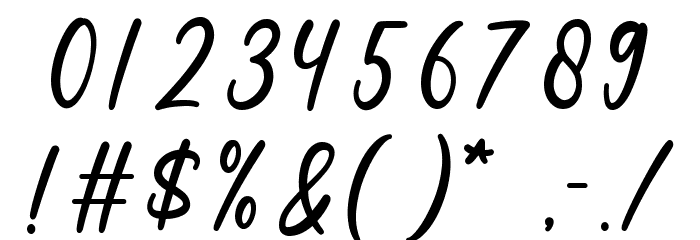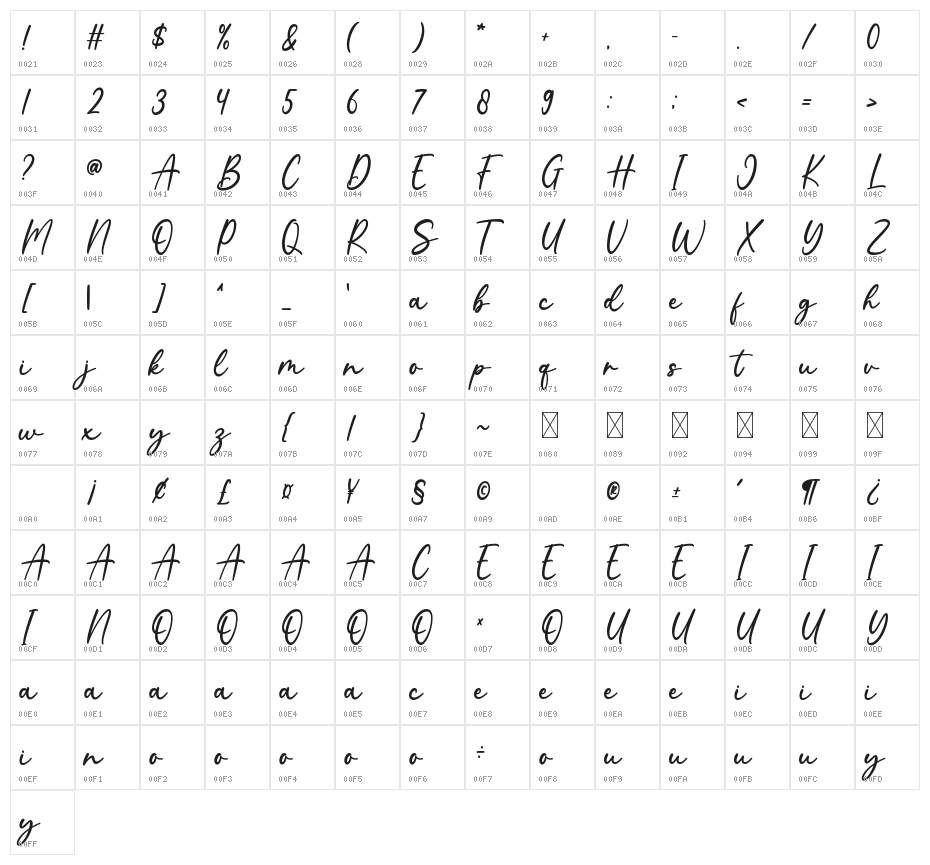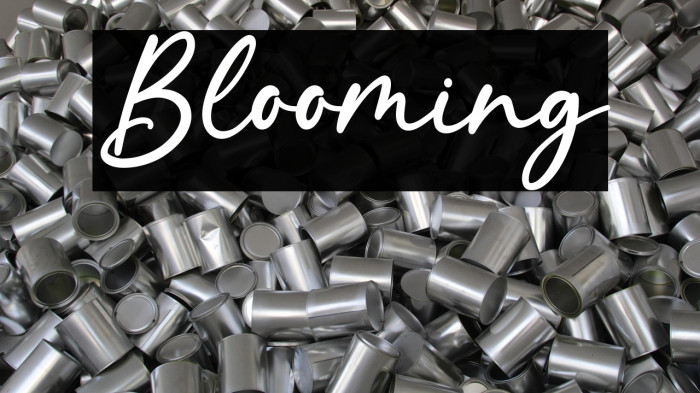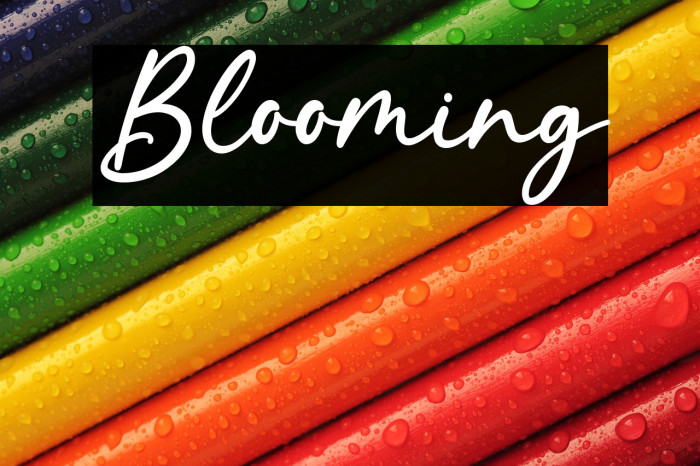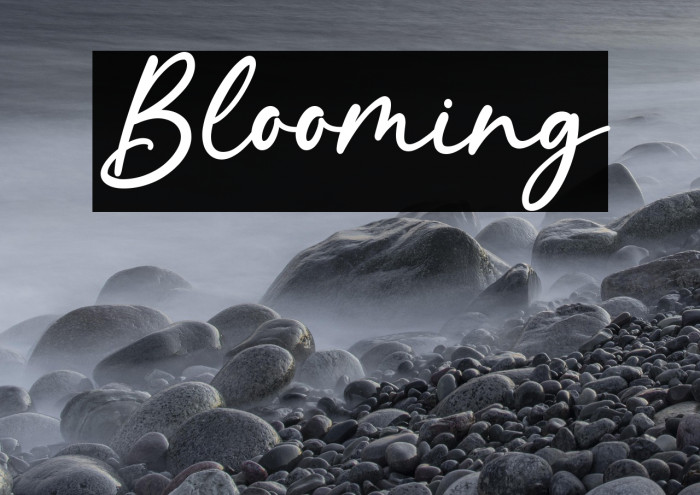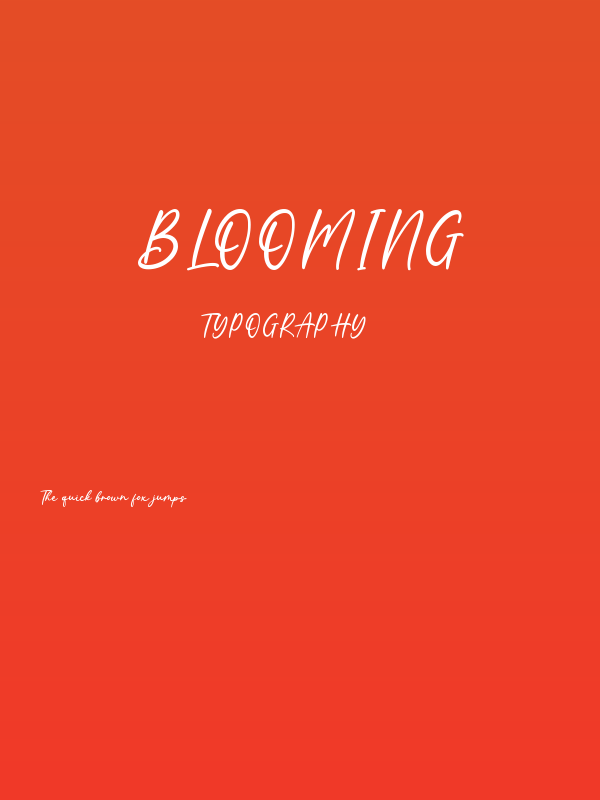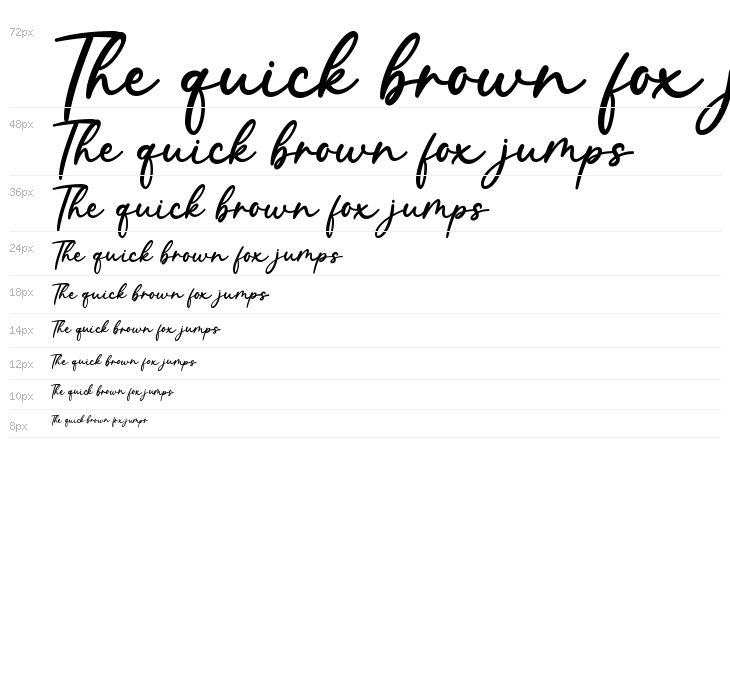
Blooming Font
Blooming Description
This font features a lively and flowing script style, characterized by its smooth, connected strokes and elegant curves. The uppercase letters are bold and slightly slanted, giving a sense of movement and dynamism. The lowercase letters maintain a consistent flow, with some letters extending below the baseline, adding to its graceful appearance. Numbers and special characters are designed to match the fluidity of the alphabet, ensuring a cohesive look. The overall design is both modern and classic, making it versatile for various applications.